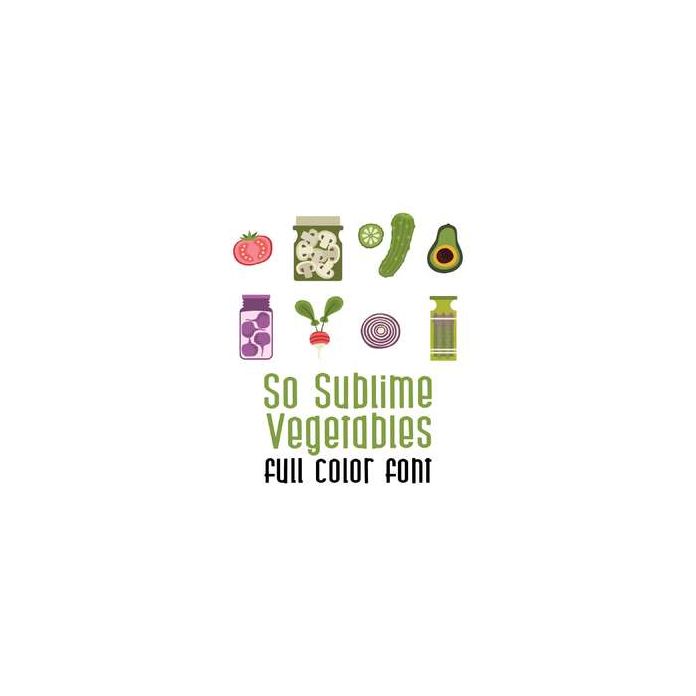
This adorable full color doodlebat font features beautiful vegetables and jarred veggies designs Perfect for cards, crafts, gifts, decor, scrap book pages, planner stickers and more!